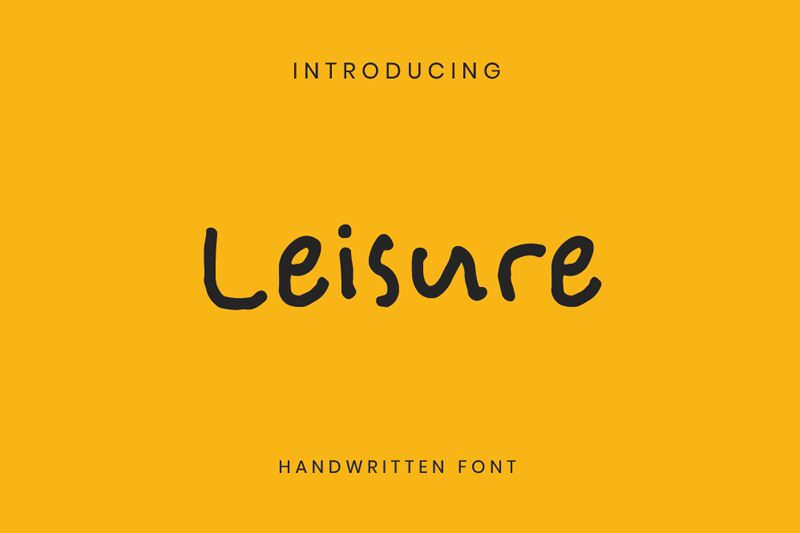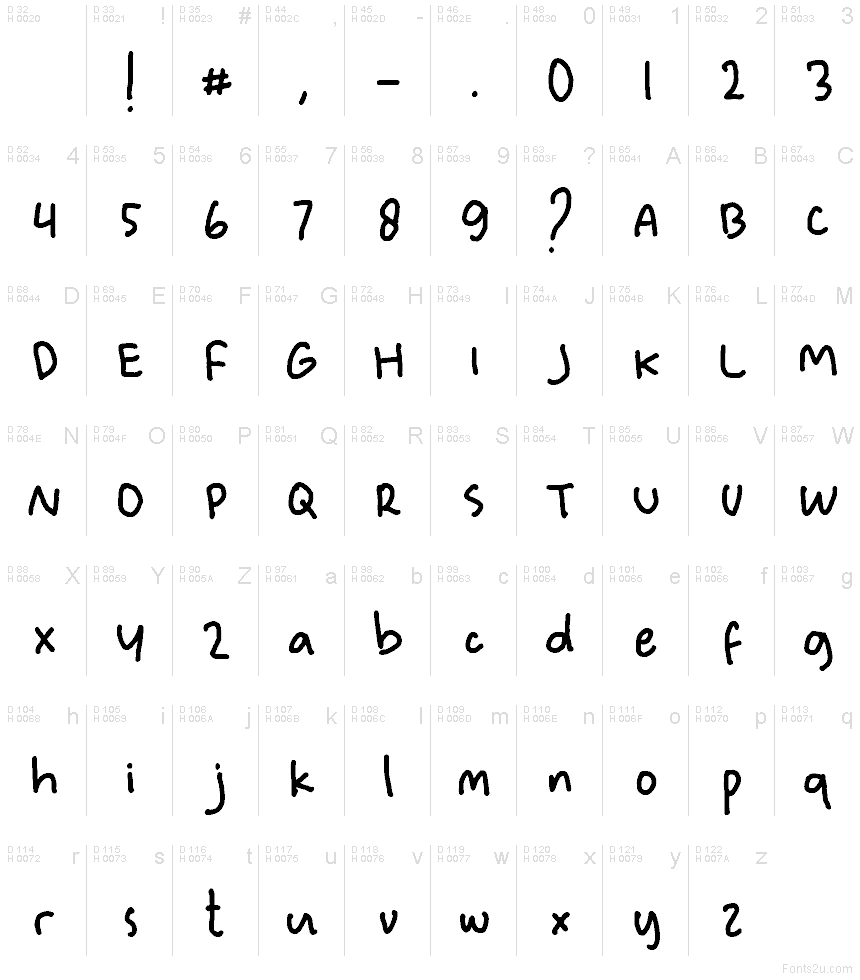
Leisure HF Regular
Leisure HF font by Just Handwritten Font is a free handwritten font that gives you friendly, natural handwriting without the usual messiness. Its rounded strokes, slightly uneven rhythm, and inky, marker-like texture feel warm and human, yet the letters stay clear and easy to read even at smaller sizes. It’s the kind of handwriting you’d expect on a thoughtful note or a relaxed café menu, translated into a consistent, ready-to-use typeface.
Using Leisure HF, you can bring a casual, approachable tone to brand posts, quote graphics, planners, packaging, kids’ projects, and lifestyle blogs. This free font shines when you want personality without sacrificing legibility or structure. Pair it with a clean geometric sans in smaller text to keep layouts grounded while Leisure HF handles the headings and key phrases with charm.